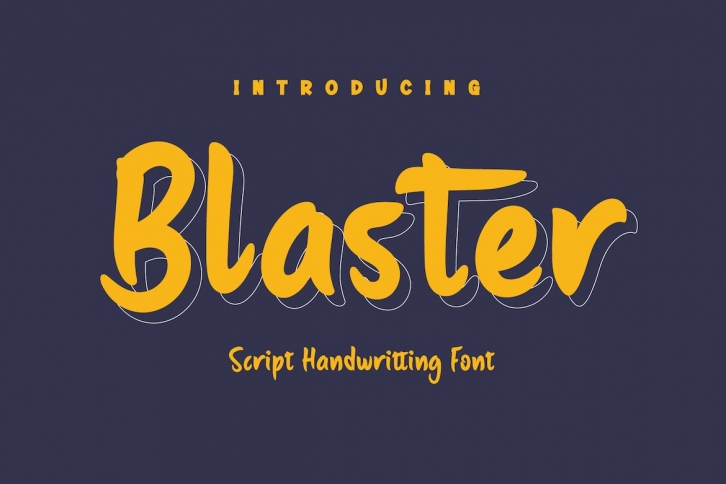
Blaster is a beautiful font that was designed by twinlettertype. It's a great choice for designers and creatives who need such a font. It was released on April 18, 2021 and the file size is 5.70 MB. Blaster may give a more youthful, expressive and casual look to your project. It is a very beautiful, refined, elegant, and high-quality font.